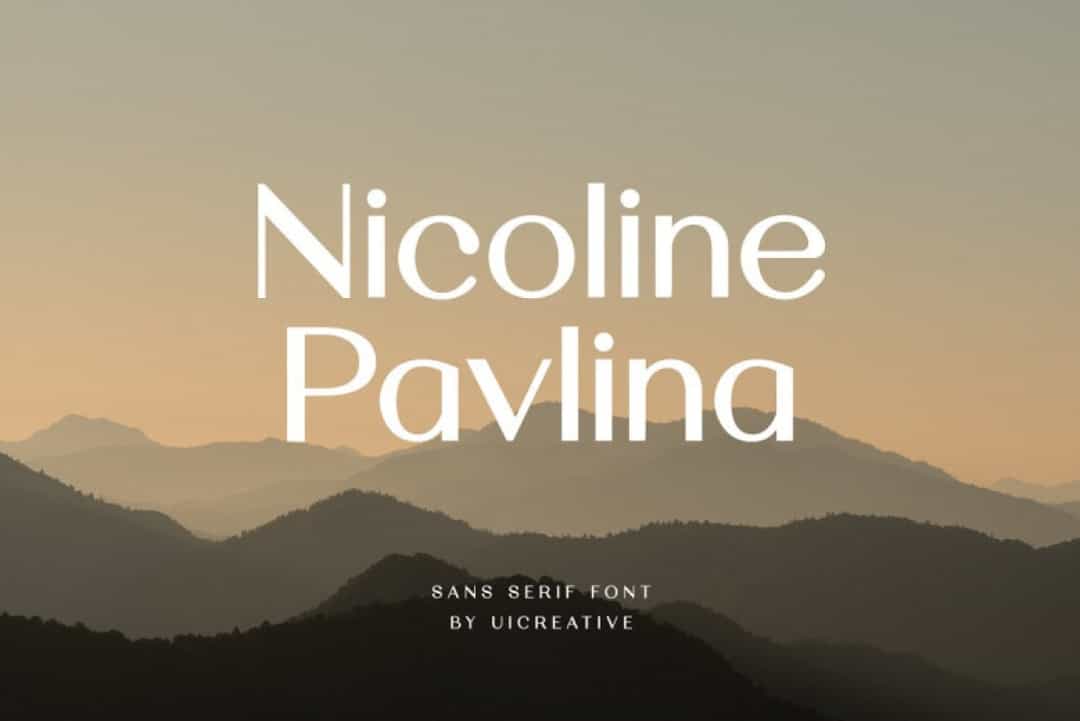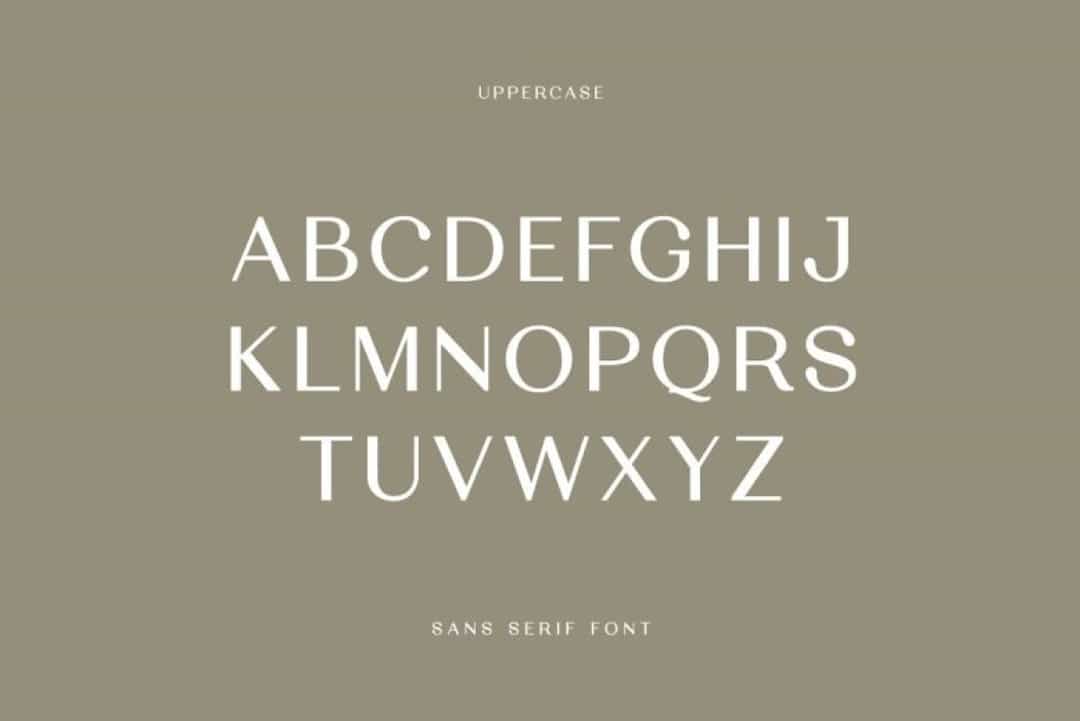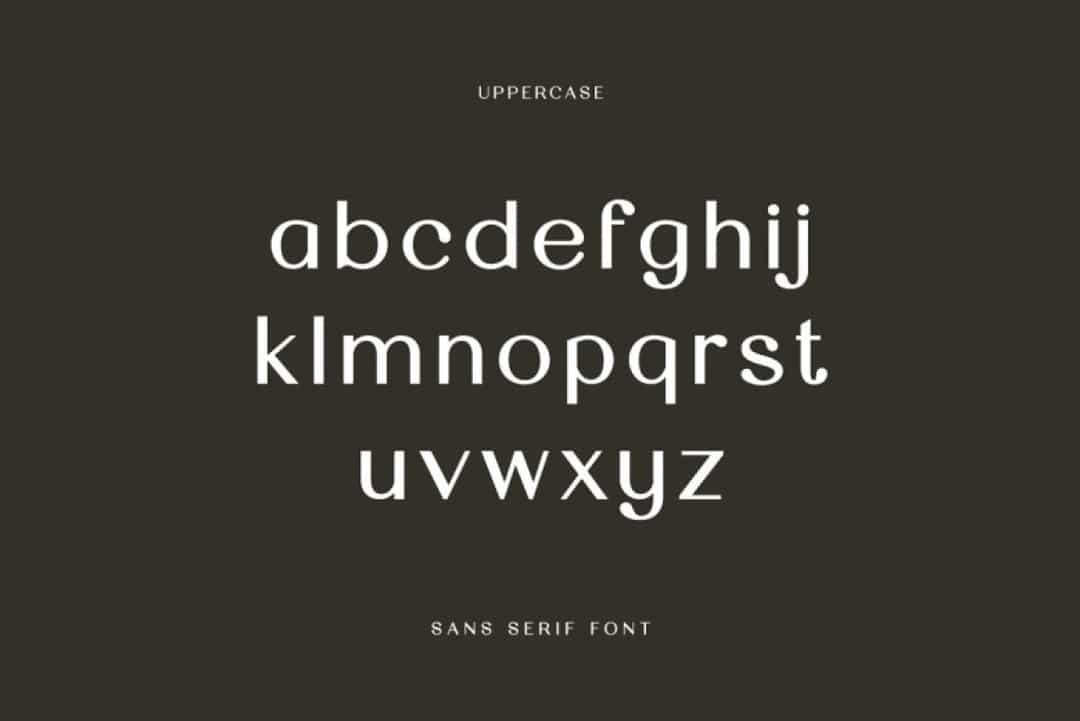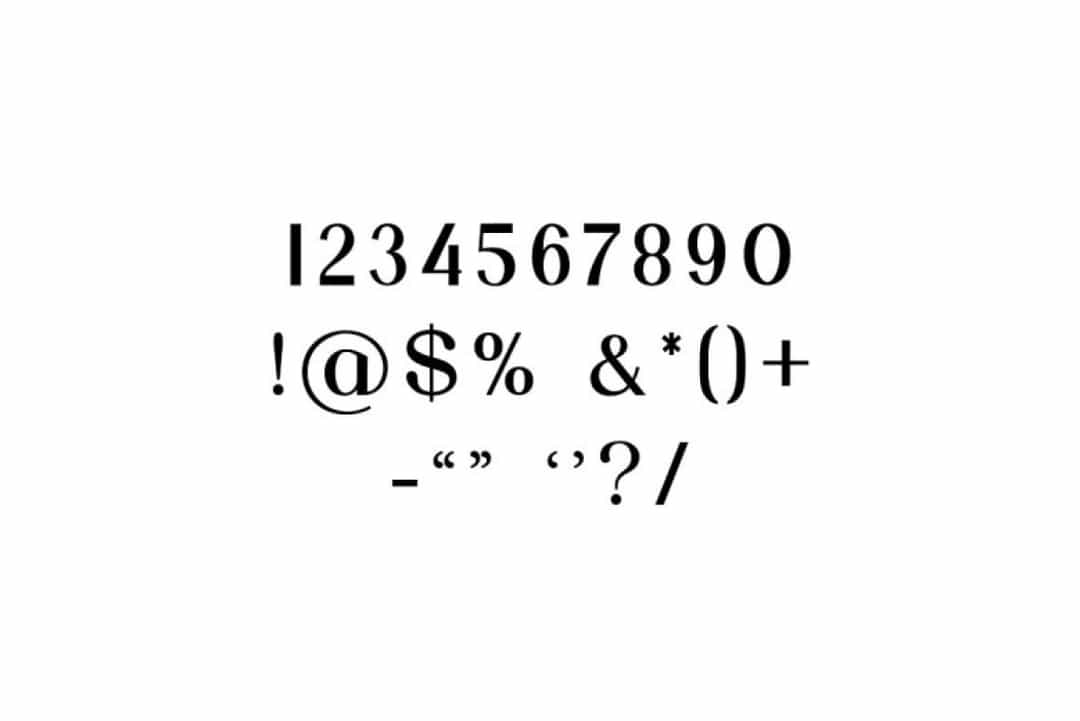
Nicoline Pavlina is an elegant, beautiful and modern sans serif font that makes an impressionful statement in many different applications, such as stationary design, signatures and wedding signatures, typography quotes magazines or book covers, headers for websites as well as packaging design for clothing brands, branding design for packaging and more.